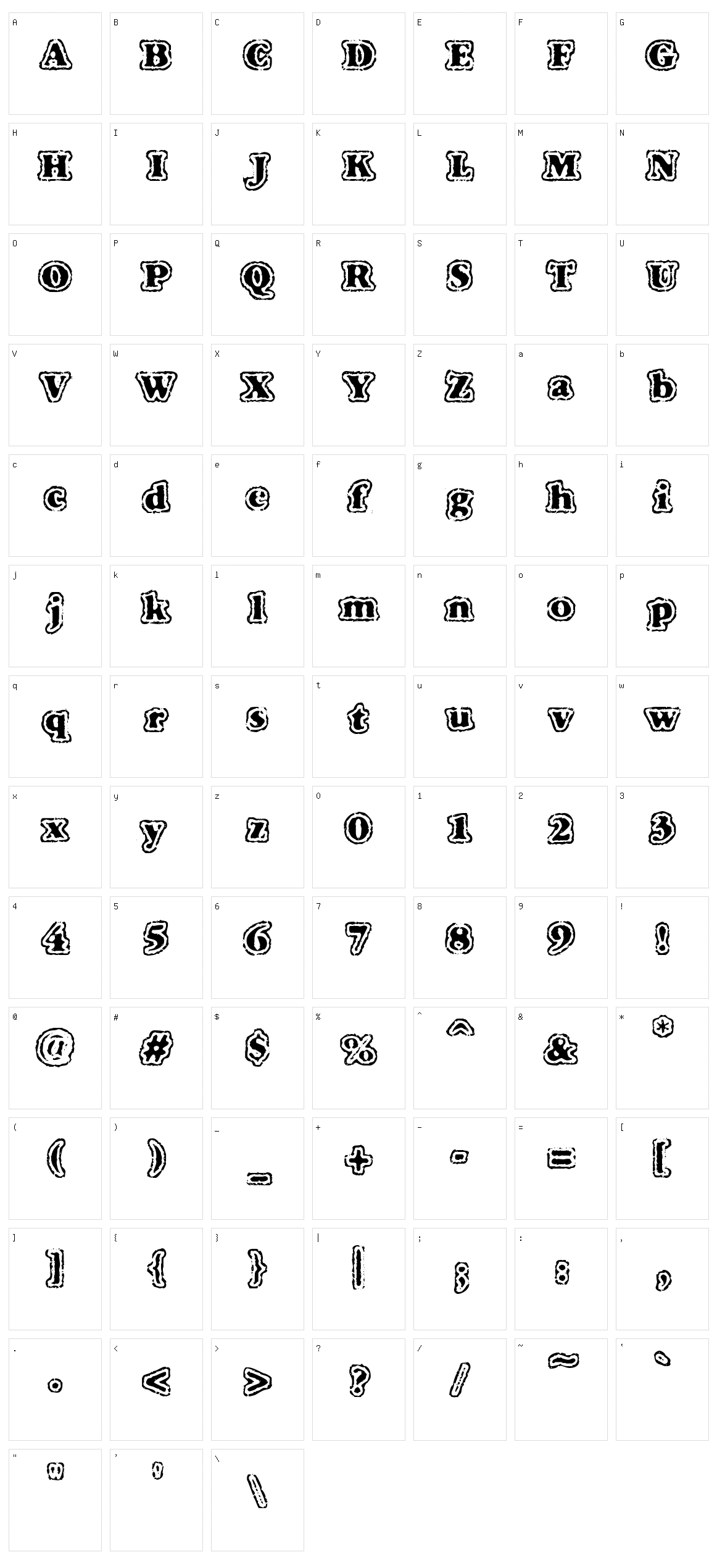
The free font VTC Fuzzy Punky Slippers is carefully designed by Vigilante Typeface Corporation, showcasing a thoughtful balance of creativity and usability and falls under the Eroded font style. When you download the ZIP file, it contains only 65.34 KB of font files, making it lightweight and quick to download. Please review the license details below to understand permitted usage and distribution rights. If license information is not available, we recommend using this font for personal projects only or contacting the author directly for commercial usage permissions.